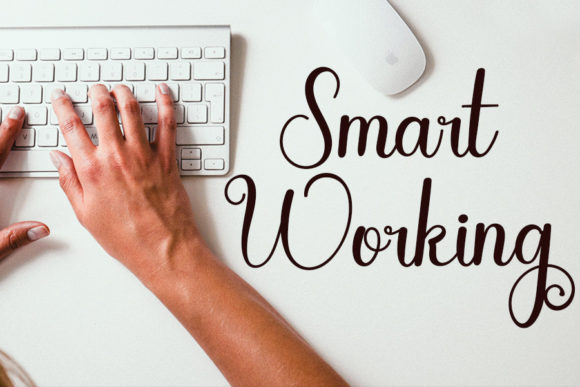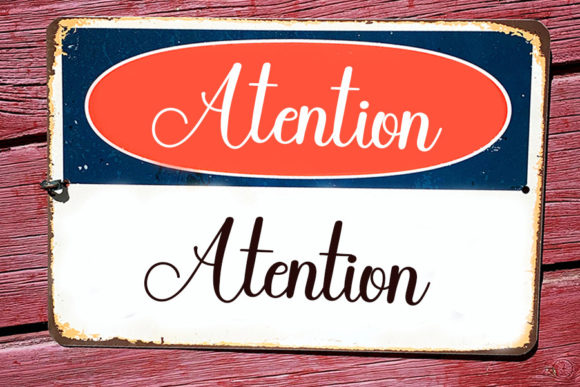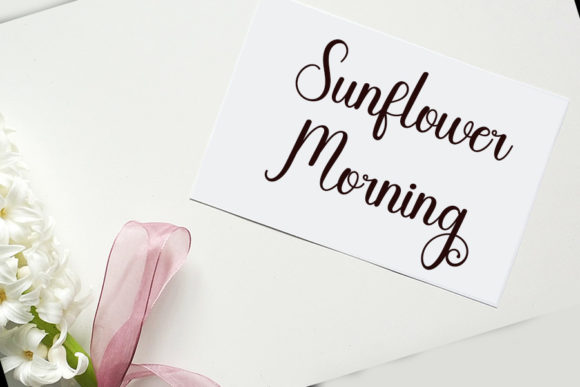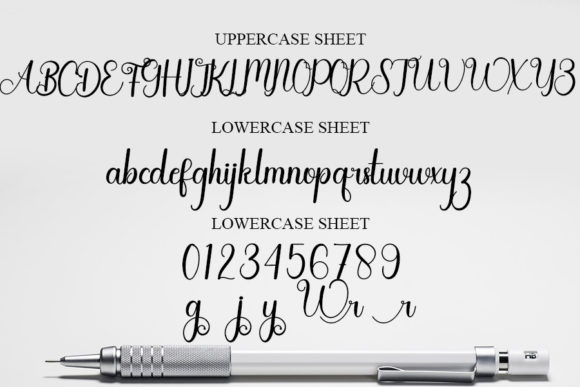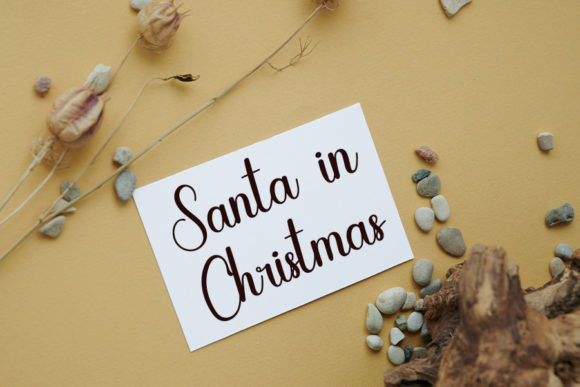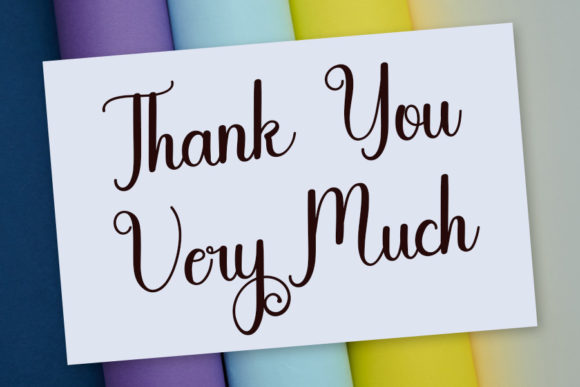
Writing Font
About Writing Font
“Writing” is a stylish handwritten font that exudes a contemporary atmosphere, coupled with impeccable form, drawing inspiration from the timeless elegance of classic calligraphy. With its balance and variation, this font is meticulously crafted to elevate the aesthetic appeal of your projects, bringing a touch of sophistication to your creative endeavors.
The contemporary charm of “Writing” makes it a versatile choice across a spectrum of design applications. Whether you’re engaged in branding projects, social media graphics, product packaging, or any other creative venture that demands a stylish touch, “Writing” seamlessly integrates into your vision. Its fusion of modern aesthetics with classic calligraphic influences ensures that your designs radiate a timeless and refined allure.
The varied strokes and impeccable form of “Writing” contribute to its visual allure, allowing it to stand out and make a distinctive mark. Whether employed for logos, invitations, advertisements, or editorial layouts, this font adds a level of elegance that captures attention and creates a lasting impact.
Beyond being a font, “Writing” serves as a design asset that enriches the overall aesthetic of your projects. Its stylish handwritten elements bring forth an authentic and personalized touch, making it an ideal choice for those seeking to convey a unique and sophisticated image.
The inclusion of PUA encoding is a valuable feature, providing easy access to a plethora of amazing glyphs and ligatures. This feature ensures that designers have the flexibility to customize their projects effortlessly, unlocking the font’s full potential and adding extra flair to their designs.
In summary, “Writing” is a stylish handwritten font meticulously designed to enhance the beauty of your projects. Its contemporary yet timeless atmosphere, coupled with impeccable form, makes it a versatile and sophisticated choice for various design endeavors. Embrace the aesthetic charm of “Writing” and let it be the design element that adds a touch of timeless elegance to your creative expressions.